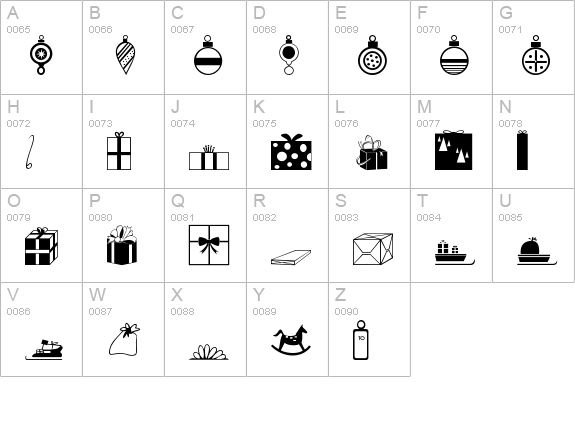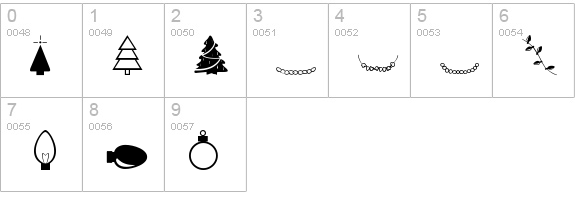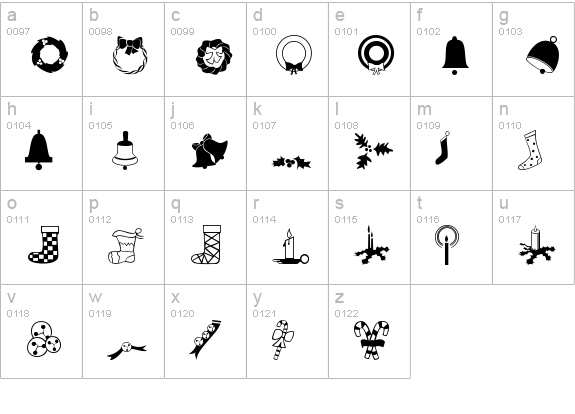
Carr Xmas Dingbats Font Details
Introducing Carr Xmas Dingbats font, a delightful and festive typeface that will add a touch of holiday charm to your designs. This whimsical font is perfect for all your Christmas-related projects, from greeting cards to party invitations, gift tags, and more. Carr Xmas Dingbats font features a wide range of beautifully crafted holiday-themed icons, including snowflakes, Santa Claus, Christmas trees, reindeer, presents, and other festive symbols. Each dingbat is intricately designed with meticulous attention to detail, capturing the joy and magic of the holiday season. What makes Carr Xmas Dingbats font even more special is that it is completely free! Yes, you read that right. This incredible font is freely available to download at FontsMarket.com. Now, you can easily elevate your Christmas designs without spending a dime. Whether you're a professional designer or a DIY enthusiast, Carr Xmas Dingbats font is a must-have addition to your font collection. Its versatility allows you to create stunning visuals for both personal and commercial projects. Spread the holiday cheer with beautifully designed graphics that capture the spirit of Christmas. Download Carr Xmas Dingbats font today and unlock a world of creative possibilities. Use it to add a festive touch to your website, create unique social media posts, design eye-catching holiday banners, or simply enhance your personal Christmas crafts. The choice is yours, and the possibilities are endless. Don't miss out on this amazing opportunity to enhance your holiday designs with Carr Xmas Dingbats font. Download it for free at FontsMarket.com and get ready to spread the joy and magic of Christmas in your designs. Happy holidays!